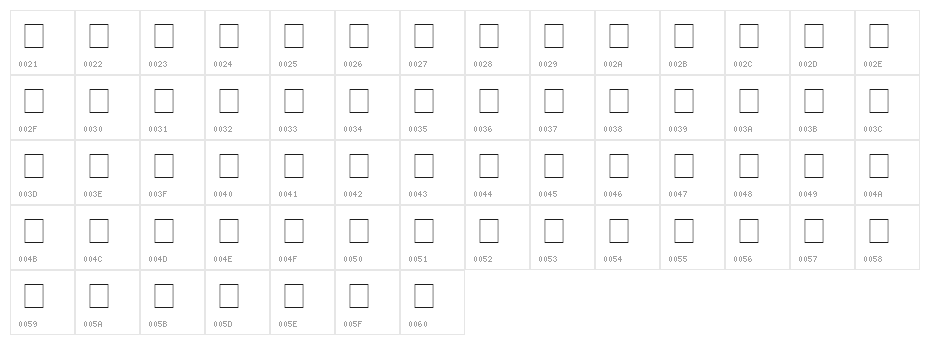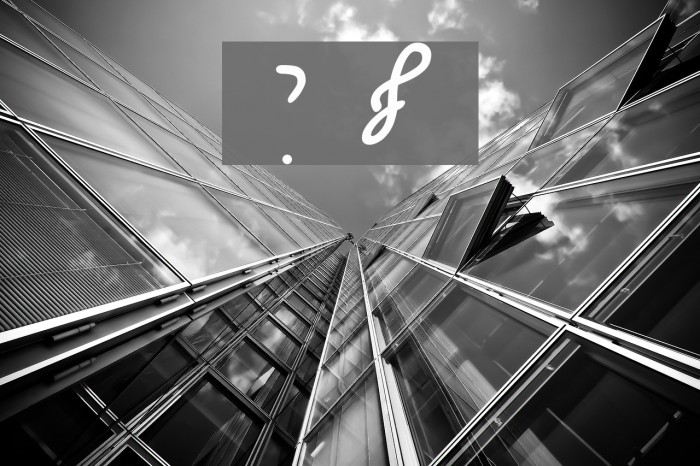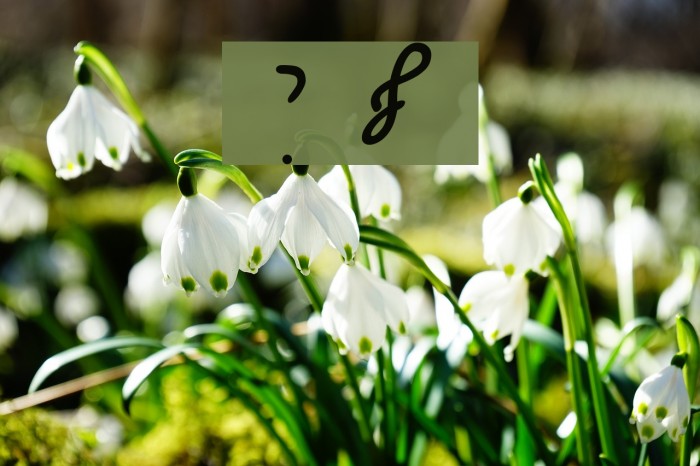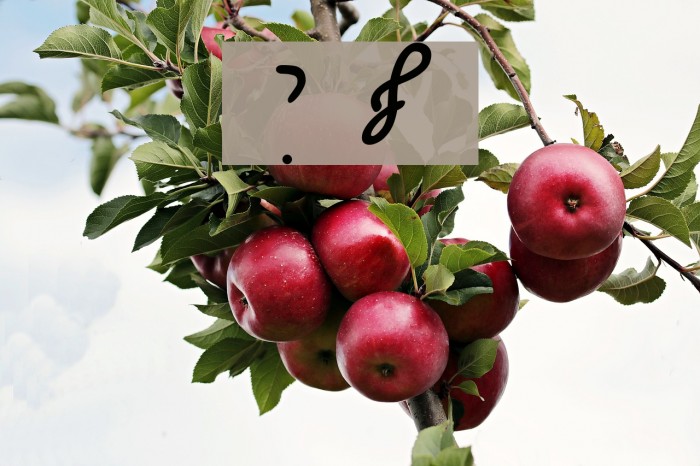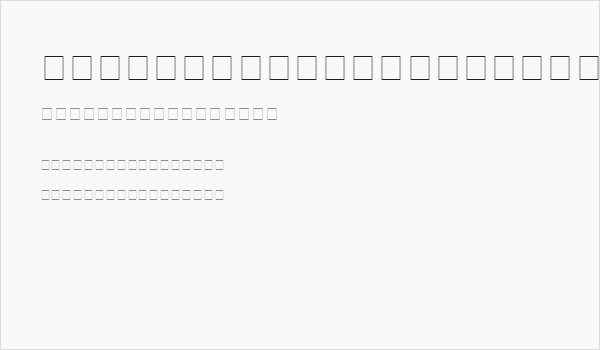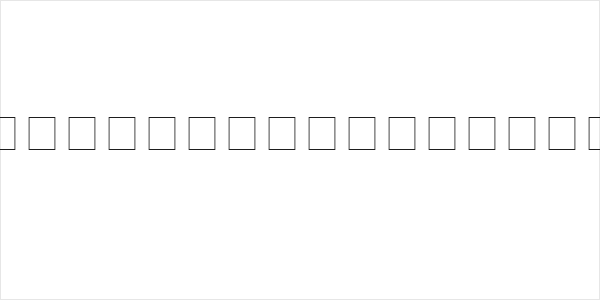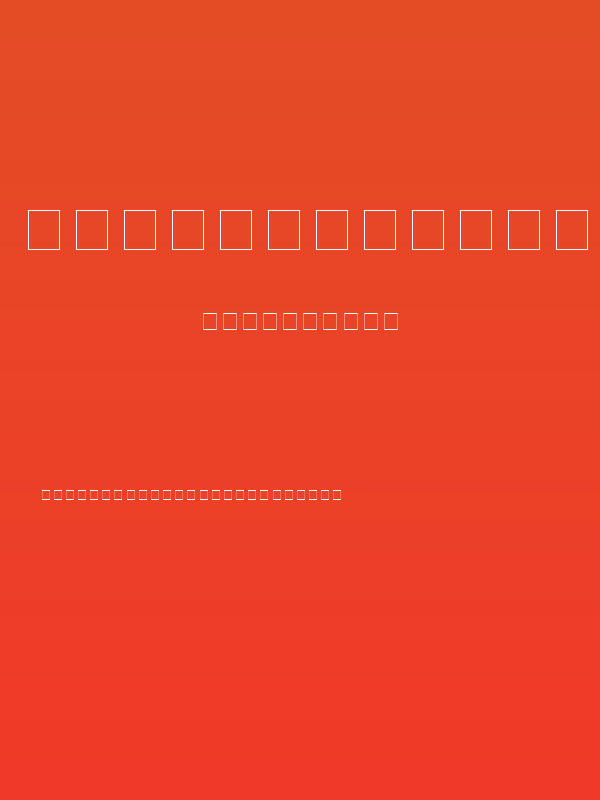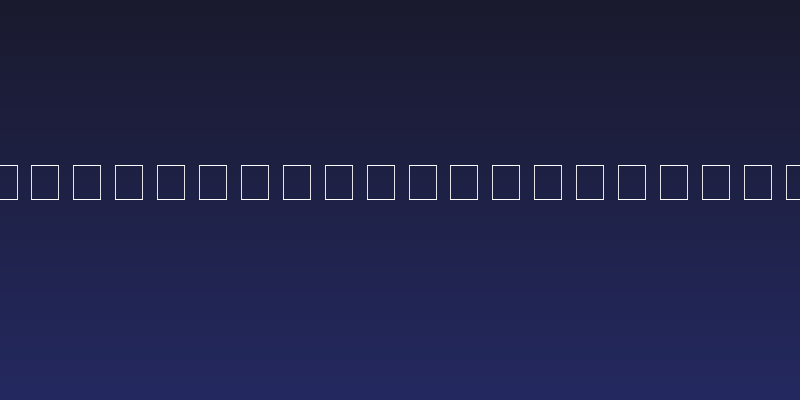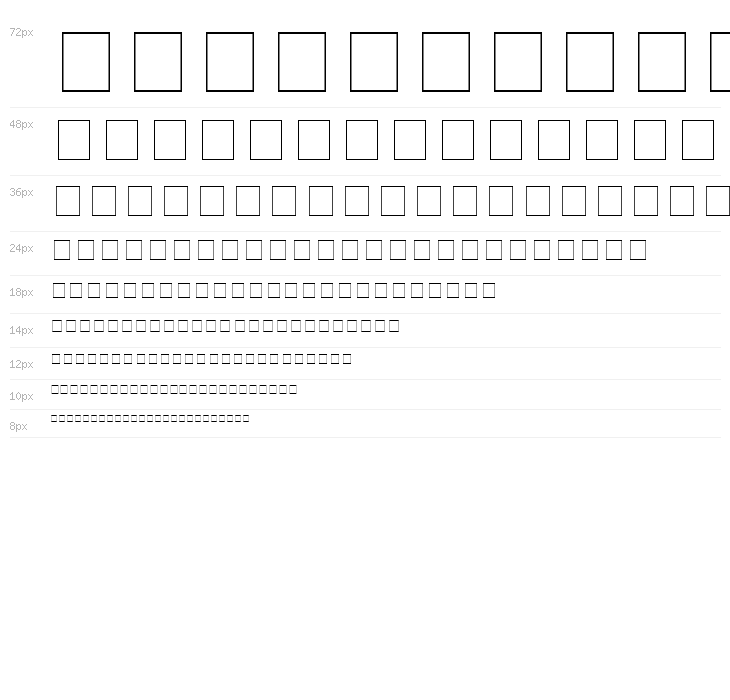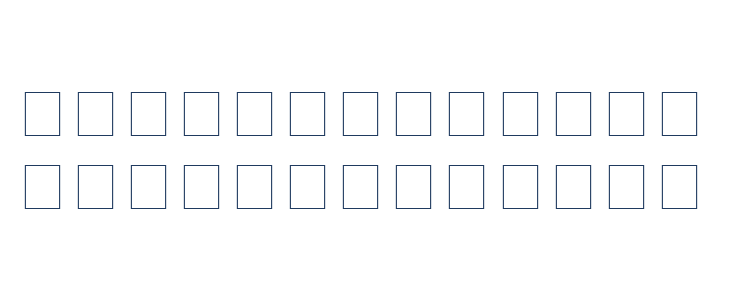
Ain Yiddishe Font Cursiv Font
Ain Yiddishe Font Cursiv Description
This font features a cursive style with a flowing, handwritten appearance. The characters are elegantly connected, giving a sense of fluidity and movement. The strokes are smooth and rounded, with a slight slant that enhances the cursive effect. The font maintains a consistent thickness throughout, providing a balanced and harmonious look. It includes a full set of Hebrew characters, numerals, and a selection of punctuation marks, making it versatile for various uses. The overall design is both classic and modern, suitable for projects that require a personal touch.
| Proposed Projects | Ideal for invitations, greeting cards, personal letters, and any project that benefits from a handwritten aesthetic. |